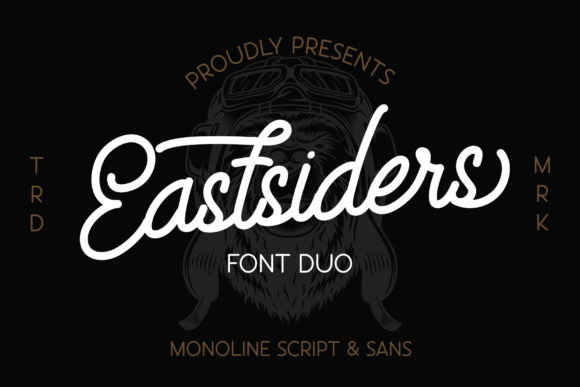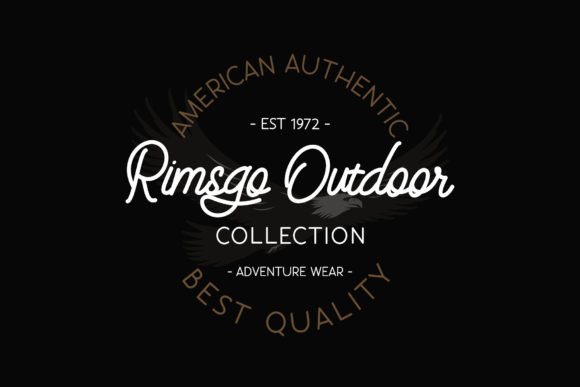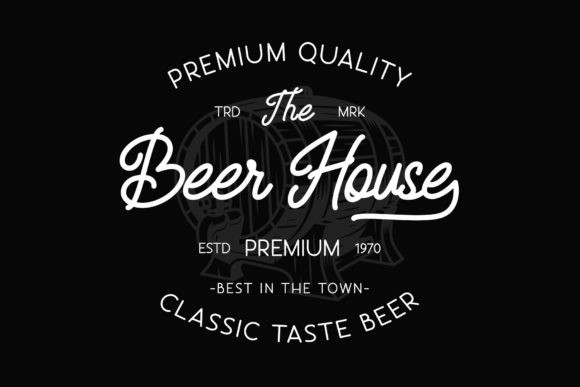
Eastsiders Font
Eastsiders is a spectacular duo font (sans serif and script). Incredibly versatile, this font fits a wide pool of designs, elevating them to the highest levels. Add this font to your favorite creative ideas and notice how it makes them come alive!